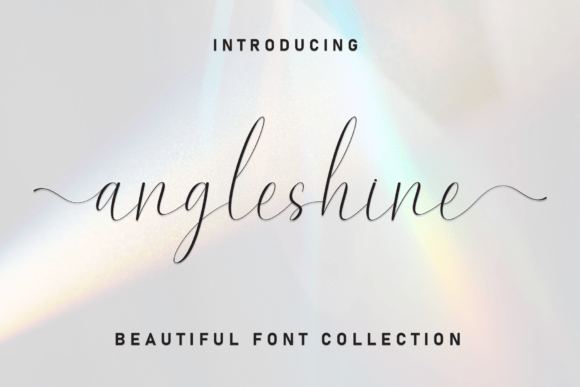
Introducing Angleshine Font: The Epitome of Elegance and Charm
Are you looking for a font that exudes elegance, charm, and a sense of renewal? Look no further than Angleshine, a stylish handwritten script font that is sure to take your designs to the next level. With its flowing strokes and graceful curves, Angleshine is the perfect choice for invitations, branding, and seasonal designs that require a touch of sophistication and whimsy.
The Characteristics of Angleshine Font
Angleshine is a carefully crafted font that boasts a range of characteristics that make it truly unique. Its handwritten script style gives it a personal and intimate feel, while its elegant strokes and curves evoke a sense of luxury and refinement. The font’s flowing lines and delicate charm make it perfect for designs that require a touch of whimsy and playfulness.
One of the standout features of Angleshine is its ability to add a soft, personal touch to any project. Whether you’re designing an invitation, a brand identity, or a seasonal greeting, Angleshine’s gentle curves and flowing strokes will help you create a design that feels warm, inviting, and engaging.
The Benefits of Using Angleshine Font
So why choose Angleshine for your design projects? For starters, the font’s elegant and refined style makes it perfect for high-end designs that require a touch of sophistication. Additionally, Angleshine’s handwritten script style gives it a personal and intimate feel that is sure to resonate with your audience.
Another benefit of using Angleshine is its versatility. The font is suitable for a wide range of design projects, from invitations and branding to seasonal designs and more. Whether you’re designing for print or digital, Angleshine’s clear and legible style ensures that your message will be conveyed with clarity and impact.
Furthermore, Angleshine is an excellent choice for designers who want to add a touch of whimsy and playfulness to their designs. The font’s flowing lines and delicate charm make it perfect for designs that require a sense of movement and energy.
Using Angleshine Font in Your Designs
So how can you use Angleshine in your designs? The possibilities are endless! Here are a few ideas to get you started:
- Invitations: Use Angleshine to create beautiful and elegant invitations for weddings, parties, and other special occasions.
- Branding: Add a touch of sophistication and refinement to your brand identity with Angleshine’s elegant and refined style.
- Seasonal Designs: Use Angleshine to create festive and engaging seasonal designs, such as holiday greetings, Christmas cards, and more.
- Packaging: Add a personal touch to your product packaging with Angleshine’s soft and elegant style.
Tips for Getting the Most Out of Angleshine Font
To get the most out of Angleshine, here are a few tips to keep in mind:
- Use it sparingly: Angleshine is a elegant and refined font, so use it sparingly to add a touch of sophistication to your designs.
- Experiment with colors: Angleshine looks beautiful in a range of colors, so don’t be afraid to experiment and find the perfect hue for your design.
- Pair it with other fonts: Angleshine pairs beautifully with other fonts, so try pairing it with a bold font for added contrast and visual interest.
| Font Name | Angleshine Font |
In conclusion, Angleshine is a truly unique and elegant font that is sure to add a touch of sophistication and whimsy to your designs. With its flowing strokes, delicate charm, and refined style, Angleshine is the perfect choice for invitations, branding, seasonal designs, and more. Whether you’re a designer, a crafty DIY enthusiast, or simply someone who appreciates beautiful typography, Angleshine is sure to delight.
Angleshine Font Specifications
| Font Type | Handwritten Script Font |
|---|---|
| Font Style | Elegant, Refined, Whimsical |
| Font Use | Invitations, Branding, Seasonal Designs, Packaging |
| Language | English and other Latin-based languages |